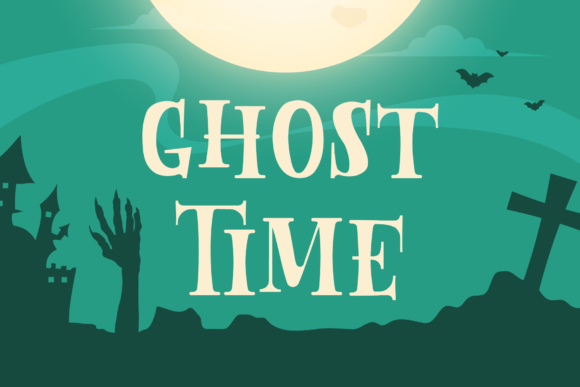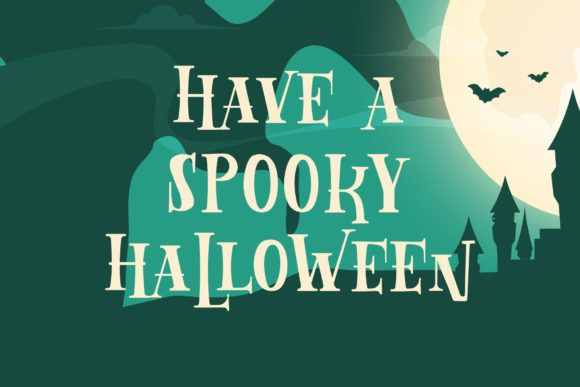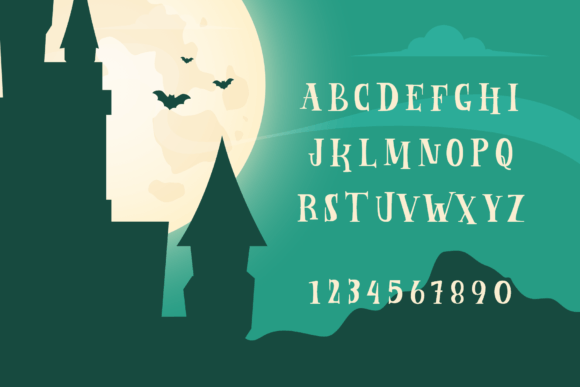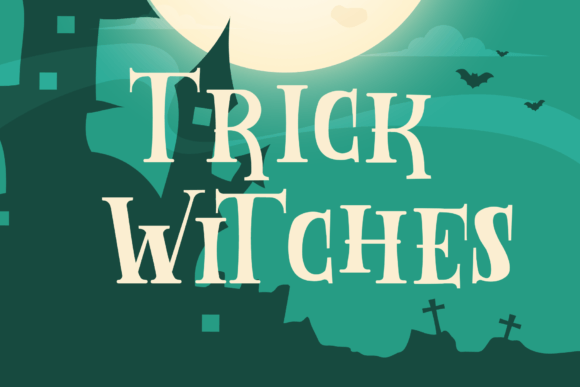
Follower Spooky Font: Unleash the Horror with this Playful yet Scary Display Font
Are you on the hunt for a font that will add a dash of horror-themed fun to your designs? Look no further than the Follower Spooky Font. Inspired by the playfulness of horror-style typography, this scary display font is perfect for designers and crafters looking to create eye-catching and imaginative projects. In this article, we’ll dive into the features and benefits of Follower Spooky, and explore how you can use it to elevate your designs.
Aesthetics and Design
Follower Spooky is crafted with great attention to aesthetics, making it a standout font for any horror-themed project. The font’s design combines playful and spooky elements, creating a unique and captivating visual experience. With its bold and quirky style, Follower Spooky is sure to grab attention and leave a lasting impression.
Versatility and Usage
One of the best things about Follower Spooky is its versatility. This font is suitable for a wide range of projects, including:
- Halloween themes: Add a spooky touch to your Halloween designs, from party invitations to decorations.
- Horror novel covers: Create eye-catching covers for horror novels and short stories.
- Scary children’s books: Follower Spooky is perfect for kids’ books with a spooky twist.
- Comics: Add a bold and playful touch to your comic book designs.
- Posters: Create attention-grabbing posters for horror-themed events and promotions.
- Packaging: Use Follower Spooky to create eye-catching packaging for horror-themed products.
- Merchandise: Design spooky and fun merchandise, such as t-shirts, stickers, and more.
- Logotypes: Use Follower Spooky to create a unique and memorable logo for your horror-themed brand.
Why Choose Follower Spooky?
If you’re looking for a font that will give your project an outstanding imaginative look, Follower Spooky is the perfect choice. Here are just a few reasons why:
- Quirky and funny: Follower Spooky has a playful side that’s perfect for designers looking to add a dash of humor to their projects.
- Crafty and imaginative: This font is designed to inspire creativity and imagination, making it perfect for crafters and designers.
- Attention-grabbing: Follower Spooky’s bold and quirky style is sure to grab attention and leave a lasting impression.
Tips for Using Follower Spooky
To get the most out of Follower Spooky, here are a few tips to keep in mind:
- Experiment with colors: Follower Spooky looks great in bold and bright colors, so don’t be afraid to experiment and find the perfect hue for your project.
- Play with textures: Add an extra layer of depth to your design by incorporating textures and patterns.
- Mix and match: Combine Follower Spooky with other fonts and design elements to create a unique and eye-catching look.
| Font Name | Follower Spooky Font |
| Author | Nest Studio |
Follower Spooky Font is a versatile and attention-grabbing font that’s perfect for designers and crafters looking to add a dash of horror-themed fun to their projects. With its playful and spooky design, Follower Spooky is sure to inspire creativity and imagination. Whether you’re working on a Halloween theme, horror novel cover, or scary children’s book, this font is the perfect choice. So why wait? Download Follower Spooky today and unleash the horror in your designs!